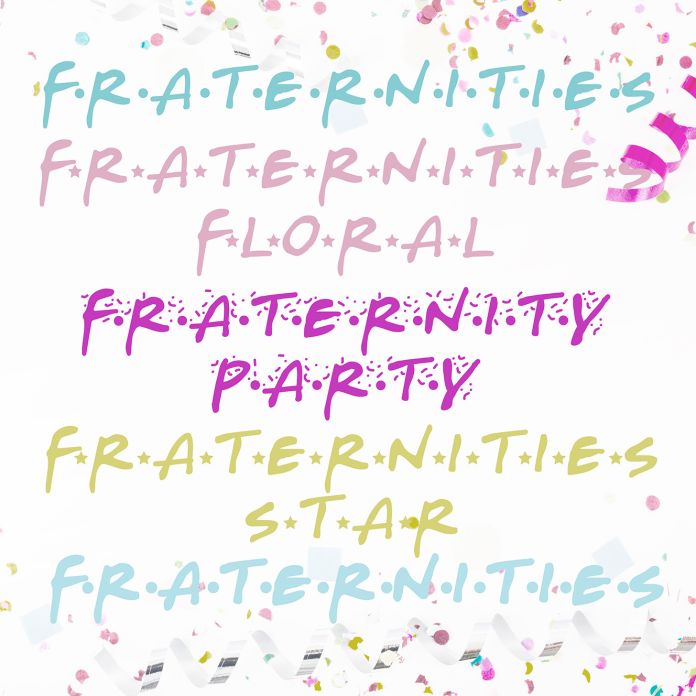
Check out this hand-written print covered in confetti and its sister fonts. Each font has an uppercase letter with an object next to it, like a dot, star, or flower. The lowercase does not have the object. To write a word like the example type the word in all uppercase but end in a lower case, like "FRATERNITy". Hand-crafted fonts can be either formal or informal, and they can be used for a variety of purposes. Some of the characteristics of handwritten fonts include: The letters are not perfectly uniform in size or shape. There may be slight variations in the spacing between letters and words. The font may have a "wiggly" or "squiggly" appearance. The font may be difficult to read at small sizes. Handwritten fonts can be a great way to add a casual touch to your designs. They can also be used to create a sense of nostalgia or whimsy. However, it is important to choose a handwritten font that is appropriate for the project you are working on. A formal handwritten font may not be appropriate for a casual invitation, while an informal handwritten font may not be appropriate for a corporate document.